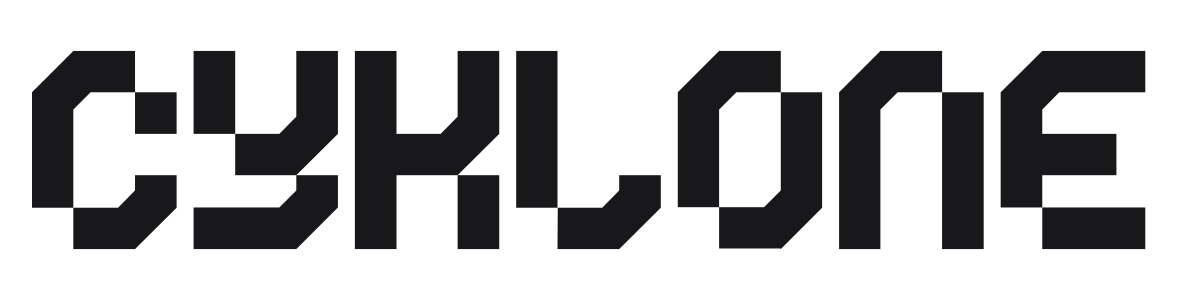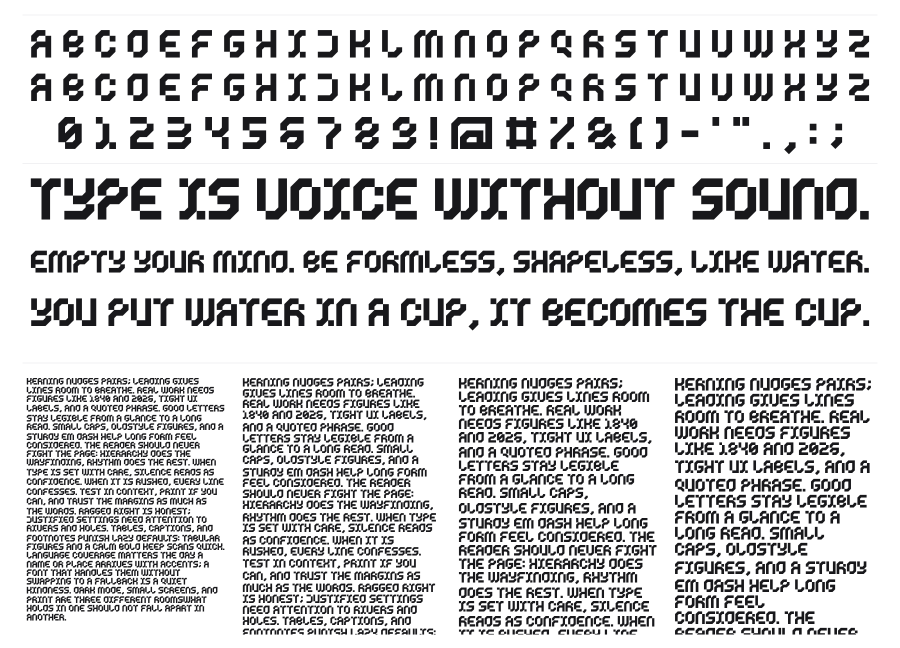
Cyklone
Cyklone is a heavy modular techno display face built on a rigid square grid, where every character is assembled from thick rectangular blocks with sharp right-angle cuts. The result is something between a pixel font and a military stencil, with a raw, mechanical density that reads loudly at large sizes. It suits gaming titles, sci-fi branding, and anything that needs a hard digital edge.